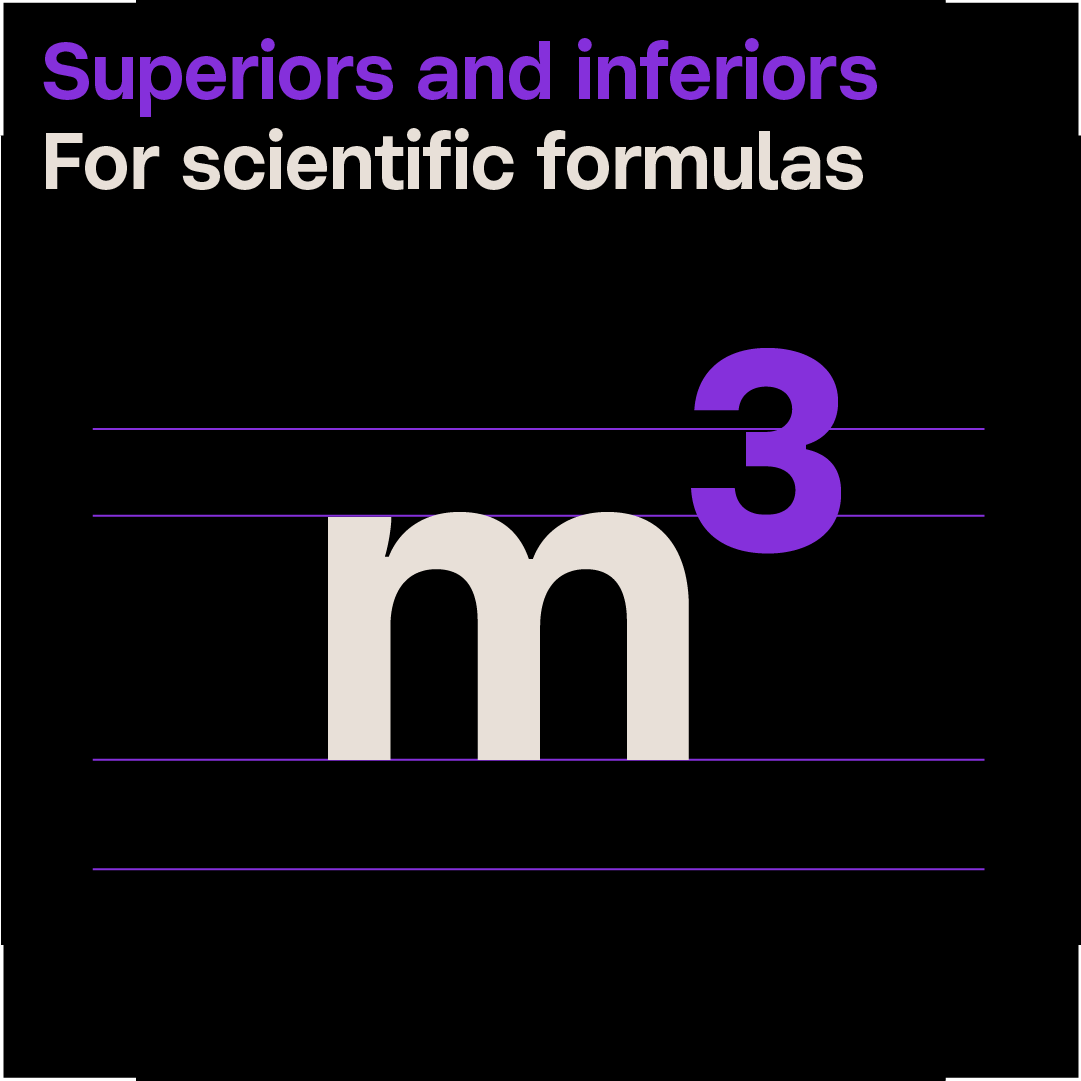
Piz Grotesk
Piz Grotesk is a modern reinterpretation of mid-century Swiss typography, inspired by the sharp beauty of glaciers. It blends technical precision with a unique character and is optimized for readability and complex technical work.
Smooth
Rounded and curved segments give a friendly and human touch
Precise
Rectangular terminals maintain a neutral and technical tone
Distinctive
Deep ink-traps to improve legibility and give additional character
When we set out to create a new static grotesk for the Serpentype foundry, we knew we had to put on proper hiking boots. Mid-century Swiss typography has always been a huge inspiration for us. We wanted to honor that legacy, but we also wanted to give it a twist that feels uniquely ours, with the latest technical innovations built in.
We drew a parallel with glaciers, imagining the sharp peaks merging with the sweeping curves of a glacier’s tongue. The inktraps, reminiscent of crevasses, add a level of detail with a memorable character. We made sure it reads beautifully, with a generous x-height and balanced proportions.
But we didn’t stop there. Glaciers aren’t just beautiful — they hold layers of history and scientific significance. That led us to focus on Piz Grotesk’s technical functionality. We extended its mathematical character set, included uni-width numerals, and optimized the subscript and superscript characters. If you’re using it for reports, diagrams, or dense technical documents, it’s going to feel like walking on clouds.
Piz Grotesk is our tribute to Swiss typography with its own personality — versatile, precise, and perfect for any project where clarity is key.
Piz Grotesk emerged from the creative synergy of two Swiss designers: us, Silvio Meier and Nando Schmidlin. After years of dedication and fine-tuning, we’re thrilled to finally unveil the finished typeface family. Designing Piz Grotesk gave us the opportunity to take our passion for aestethics to the highest level of perfection, using every skill we’ve acquired over the years in graphic and product design.